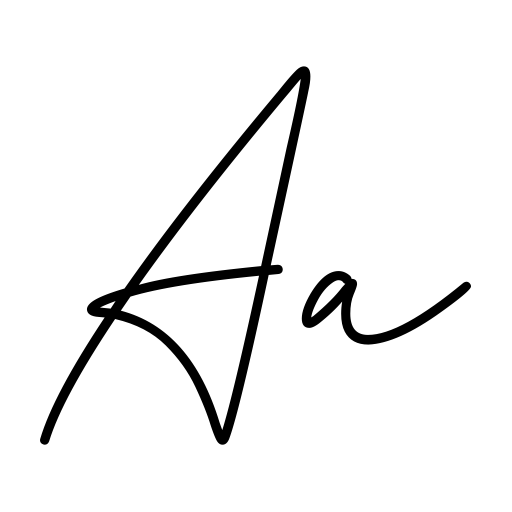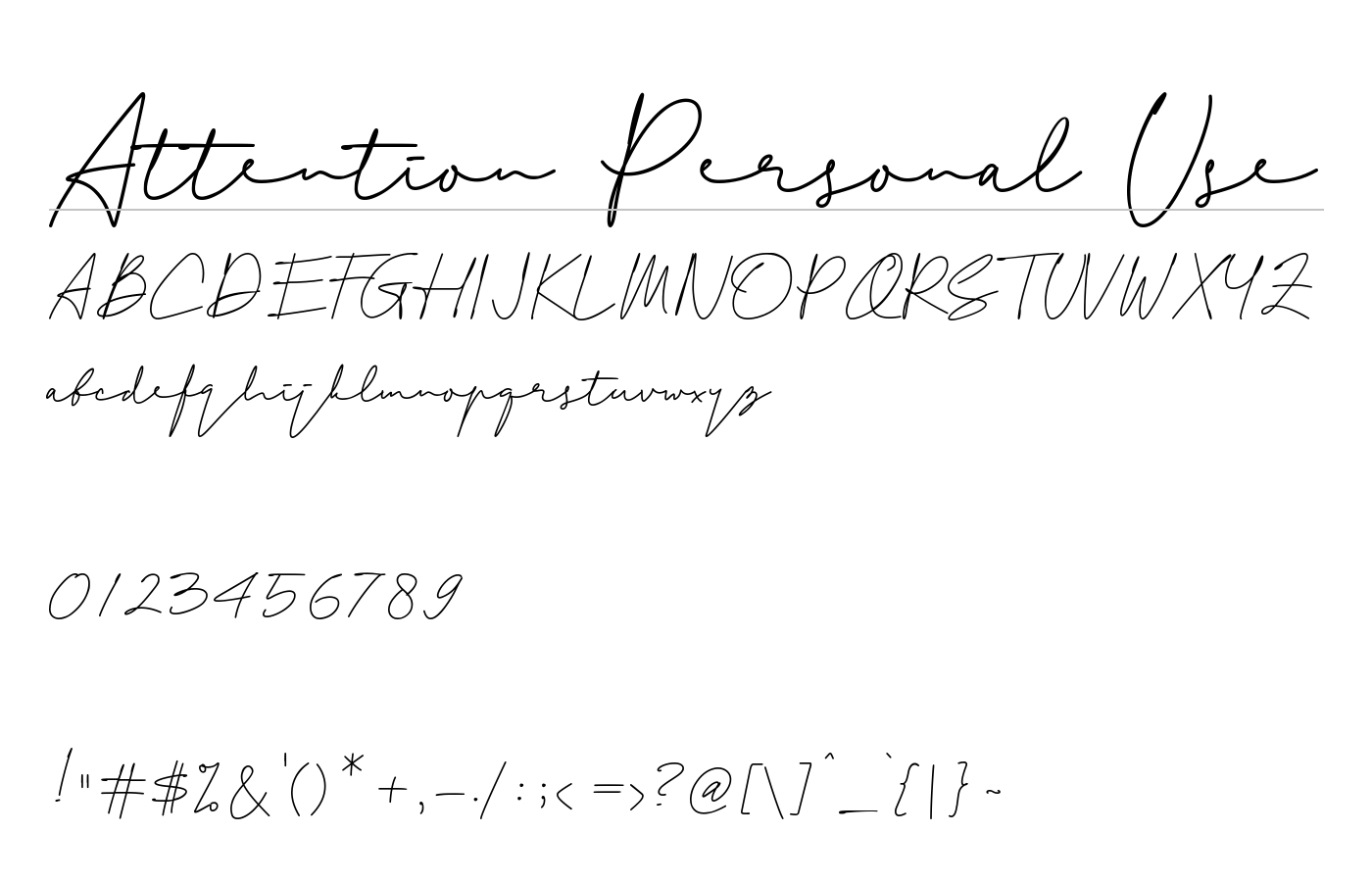
Attention Personal Use is a delicate, handwritten script font characterized by its thin, flowing strokes and elegant, casual style. It offers a sense of personal touch with a natural, slightly whimsical feel, making it perfect for invitations, branding, or creative projects that seek a warm, approachable charm. This font works best in larger sizes where its fine lines and fluid letterforms can shine, adding a stylish and friendly note to your design.
Attention Personal Use Font